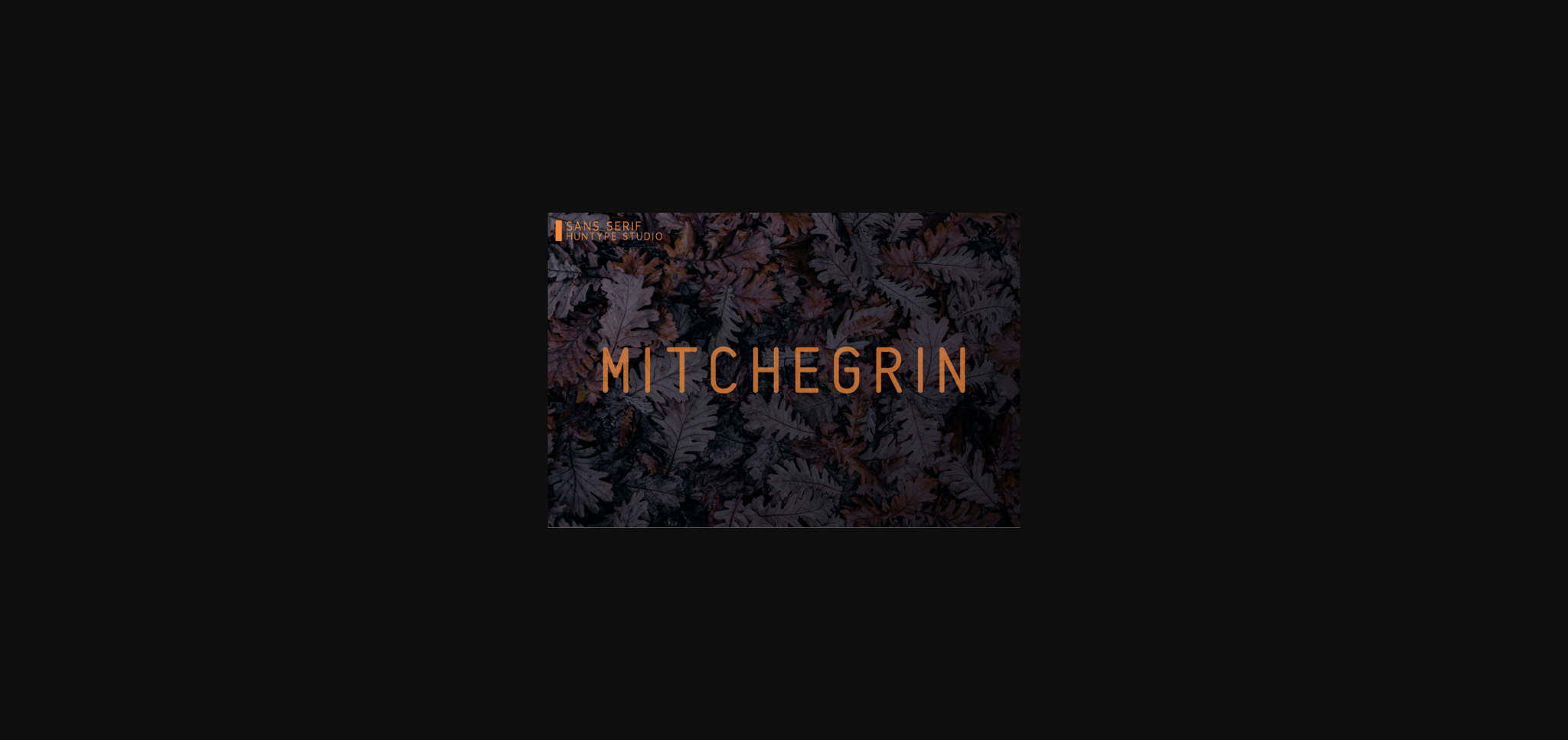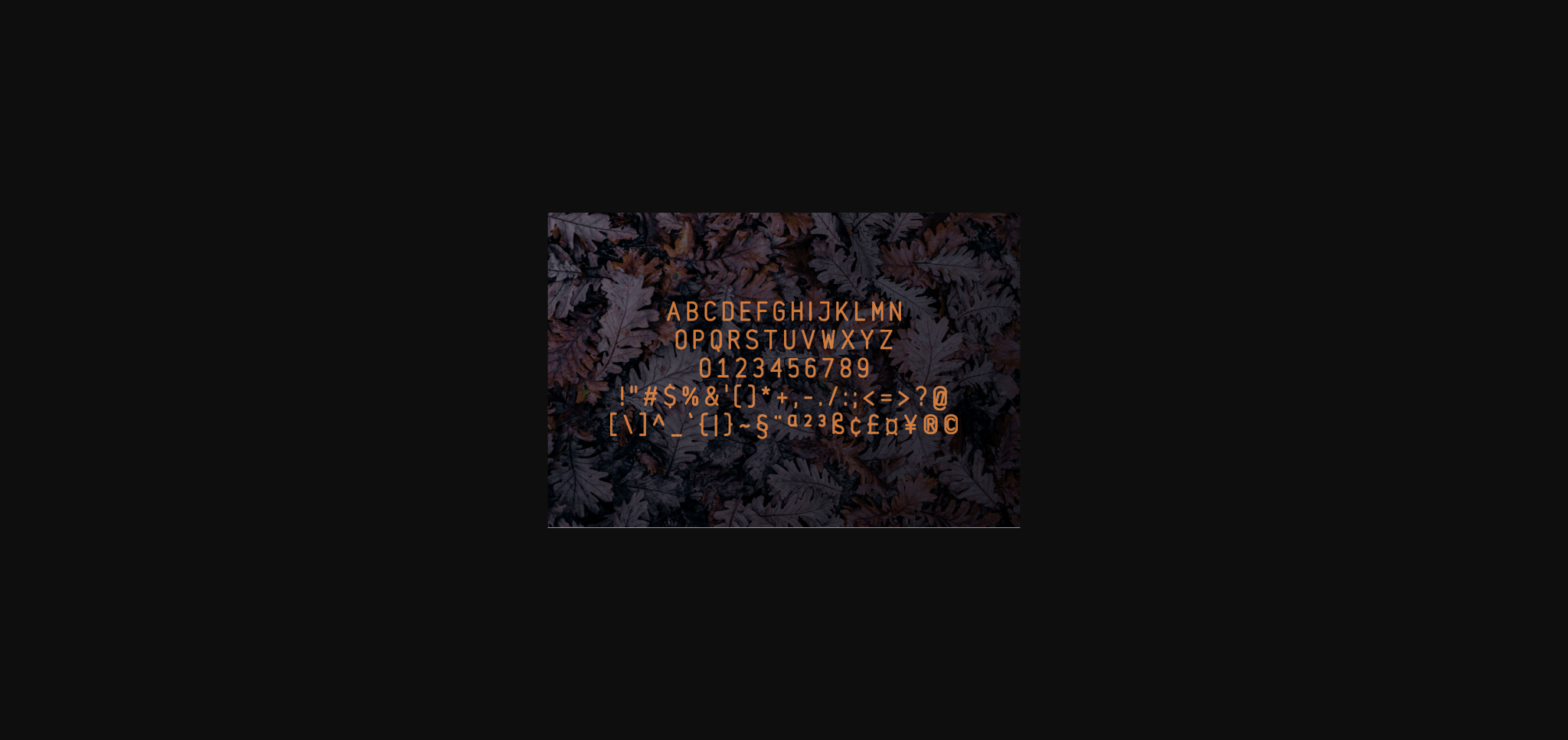
Mitchegrin Font
About Mitchegrin Font
Mitchegrin is a timeless sans serif font. Its casual charm makes it appear wonderfully down-to-earth, readable and, ultimately, incredibly versatile. Mitchegrin will look outstanding in any context, whether it’s being used on busy backgrounds or as a standalone headline!